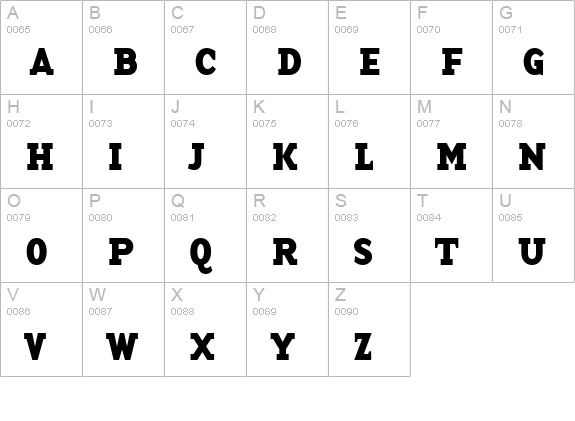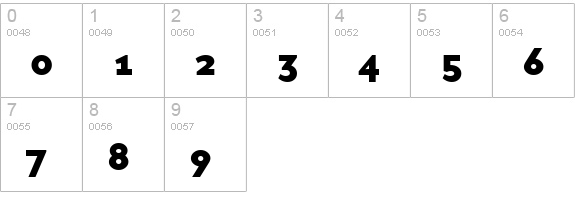
BaseTwelveSerif Bold is a strong, high-contrast variant in the BaseTwelveSerif typeface family \xE2\x80\x94 well suited to headlines, attention-grabbing titles, and strong calls-to-action.
BaseTwelveSerif Bold font is a versatile and eye-catching typeface that exudes elegance and sophistication. With its bold and distinctive serifs, this font is perfect for making a strong statement in any design project. Whether you are creating a logo, poster, or website, BaseTwelveSerif Bold font will add a touch of class and professionalism. And the best part is, BaseTwelveSerif Bold font is completely free to download at FontsMarket.com. You can easily enhance your typography game without breaking the bank. Don't miss out on the opportunity to elevate your designs with this stunning font that is just a click away. Download BaseTwelveSerif Bold font today and take your projects to the next level!